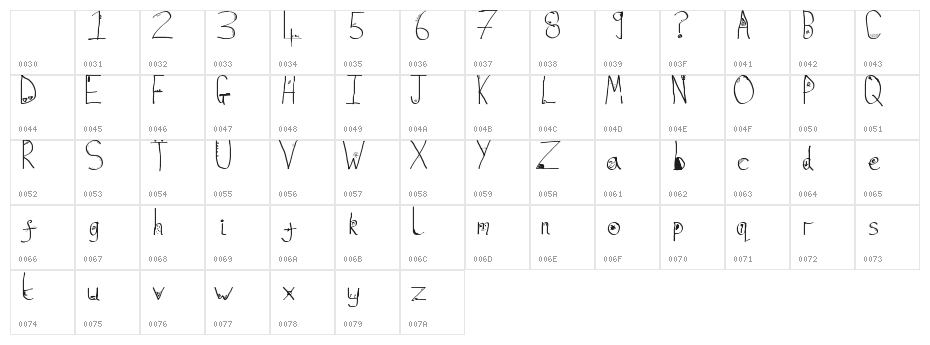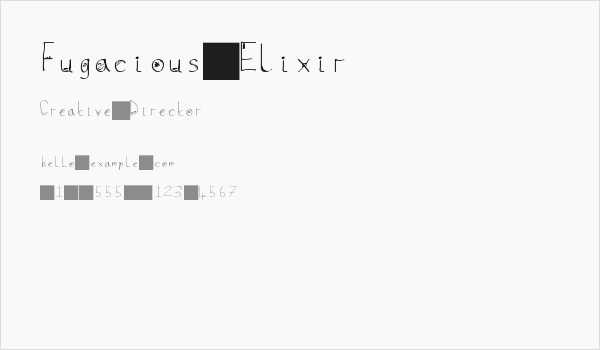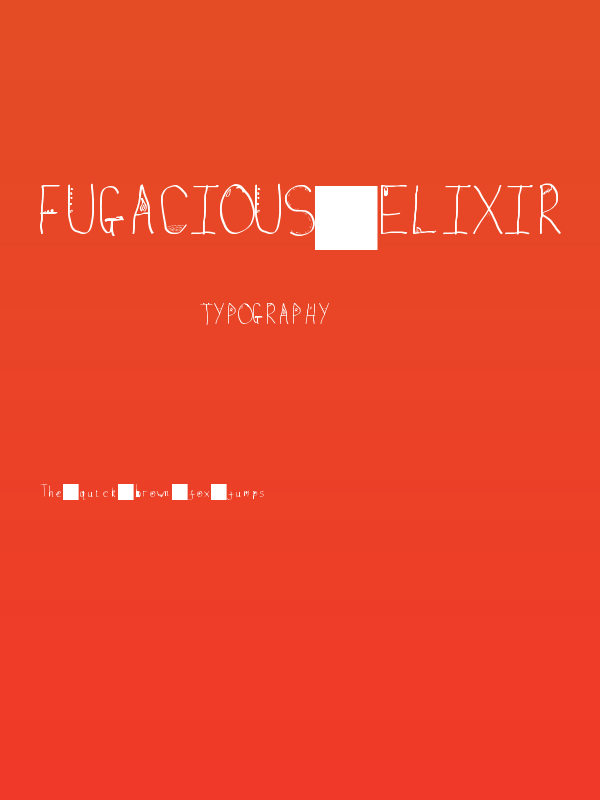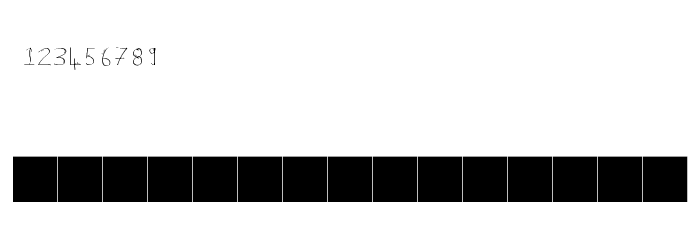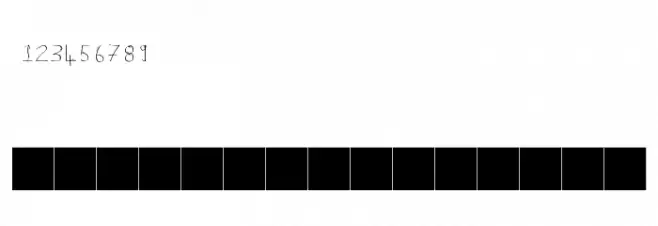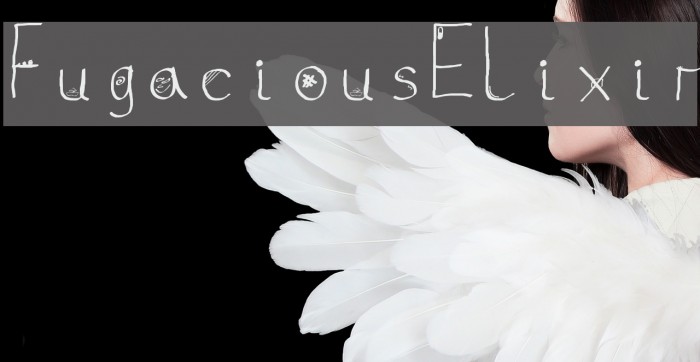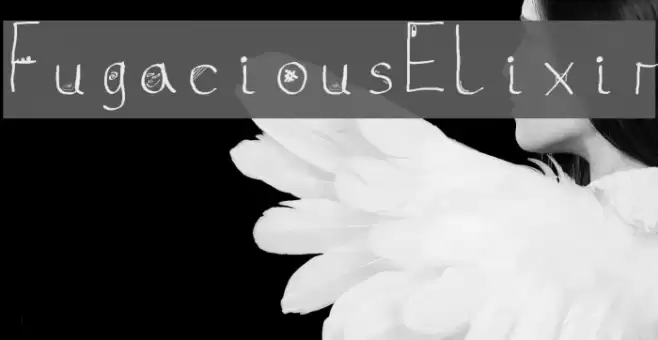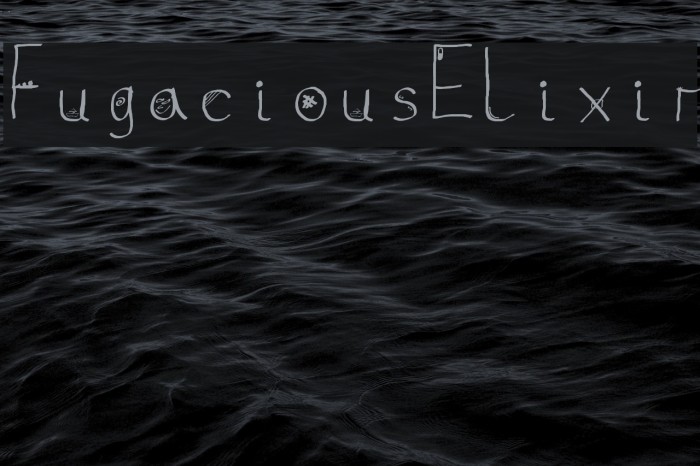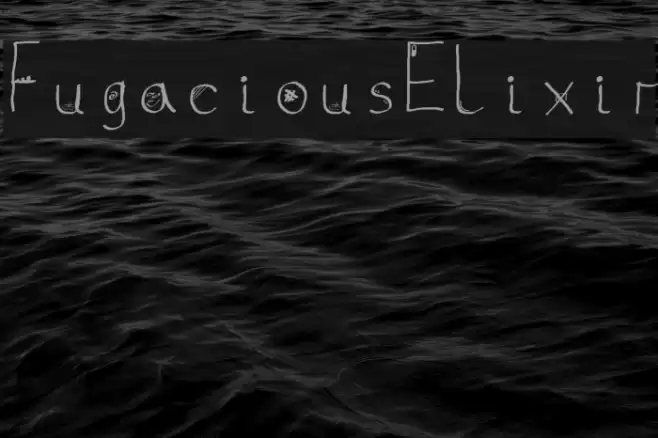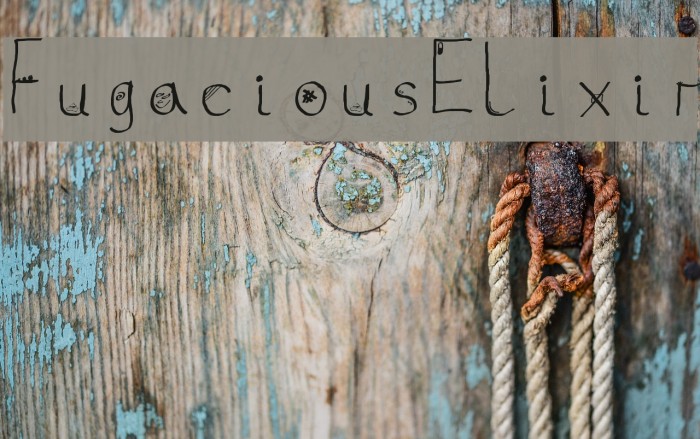
Fugacious Elixir Font
| Gesamtstil | Artistic, Whimsical |
| Anwendungsfall | Headlines, Artistic projects, Creative branding |
| Vorgeschlagene Projekte | Ideal for children's books, artistic posters, creative branding, and whimsical invitations. |